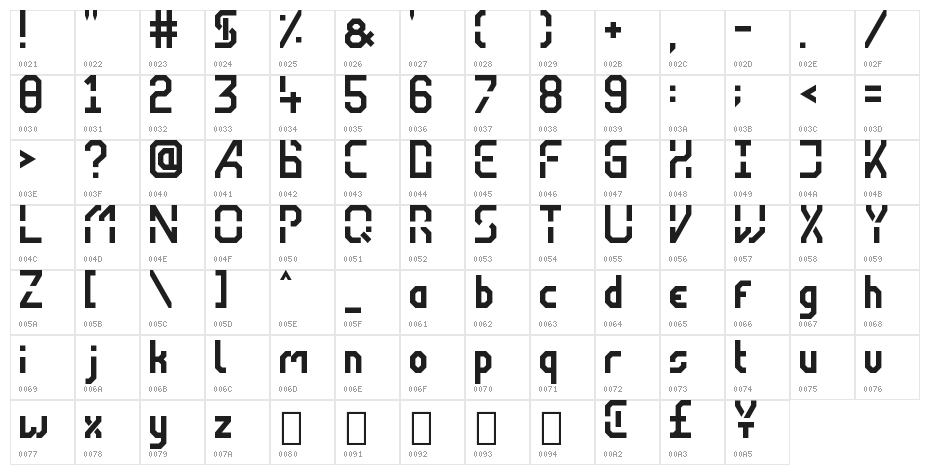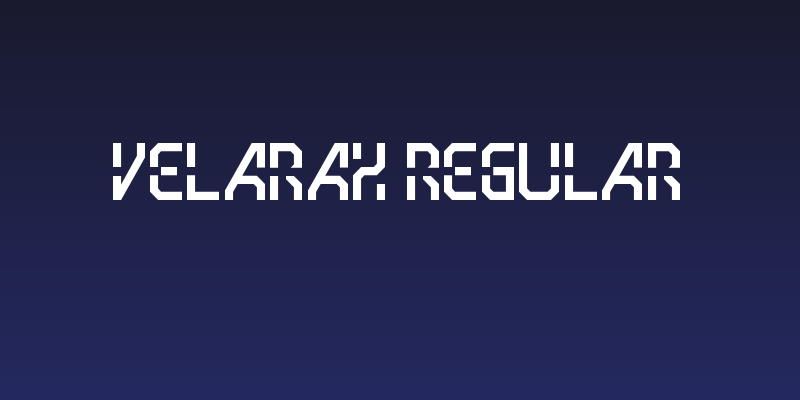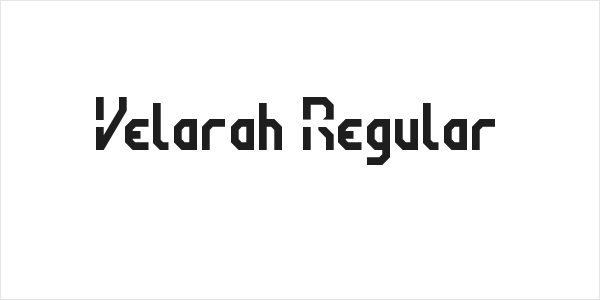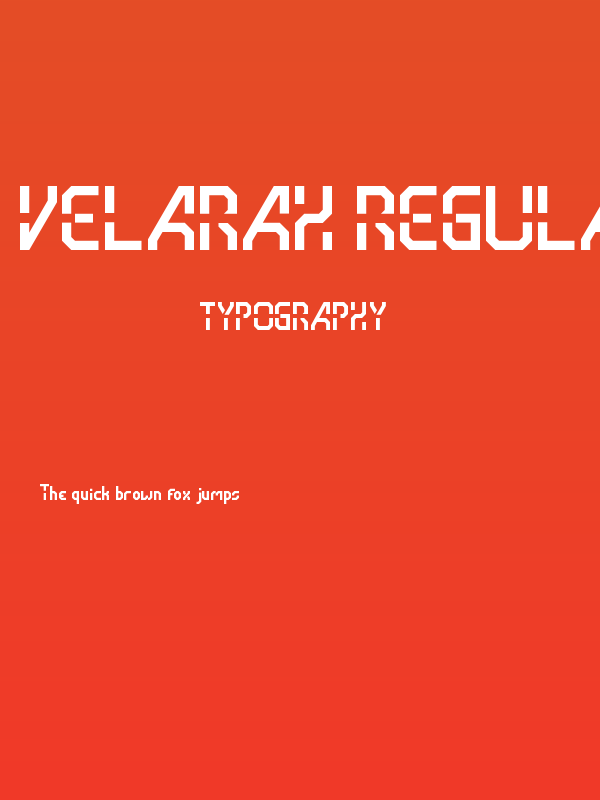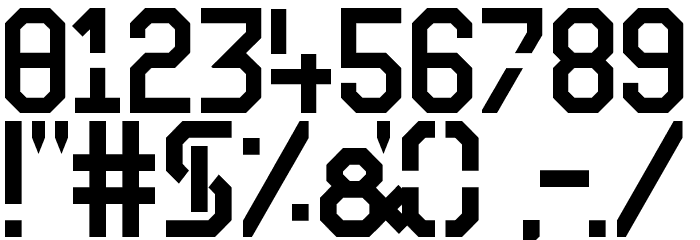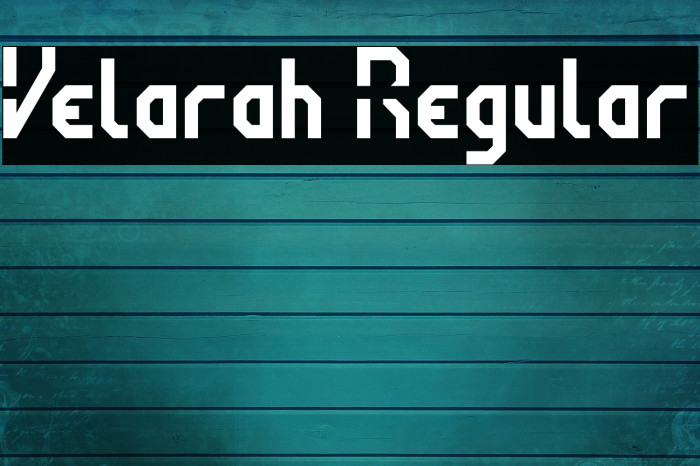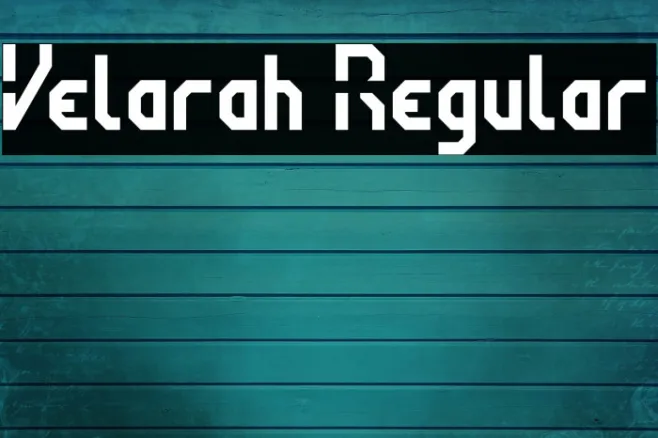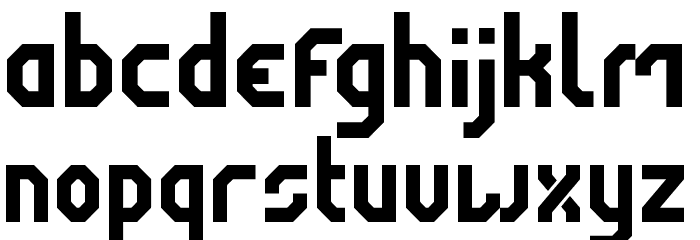
Velarah Regular Font
Velarah Regular Description
This font features a bold, geometric design with a futuristic aesthetic. The characters are constructed with sharp angles and straight lines, creating a sense of precision and modernity. The uppercase and lowercase letters maintain a consistent style, with a unique approach to traditional letterforms. The numbers and special characters follow the same design principles, ensuring a cohesive look across all elements. This font's distinct appearance makes it stand out, offering a strong visual impact.
| Proposed Projects | Ideal for technology branding, sci-fi themed projects, video game interfaces, and modern poster designs. |